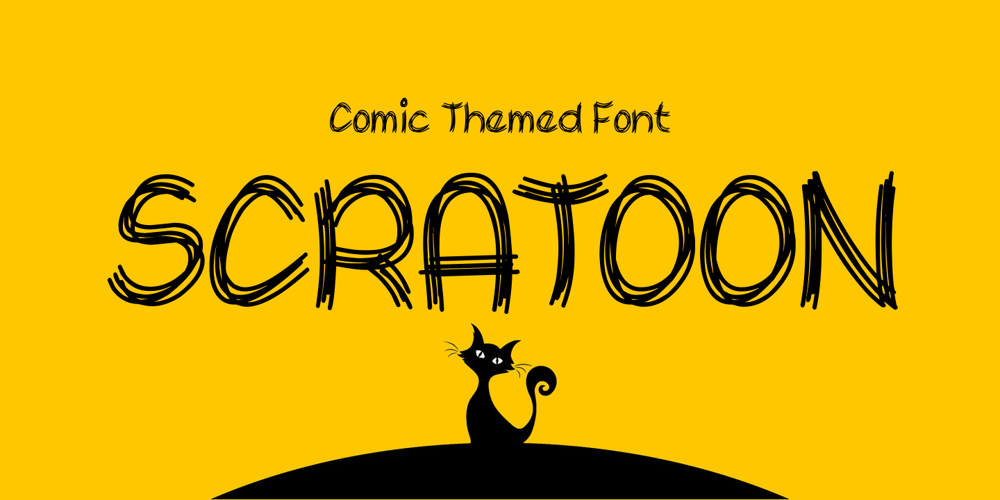
Scratoon
Scratoon font
Scratoon Font Family was designed by Ahmad Zulfikar Ali and published by ZetDesign. Scratoon contains 1 styles and family package options. Scratoon is our latest font created for cartoon and comic-themed design work. This font is perfect for displaying posters, banners, flyers, and also suitable for cloothing. I hope this font really helps your creative working.. … Thanks …